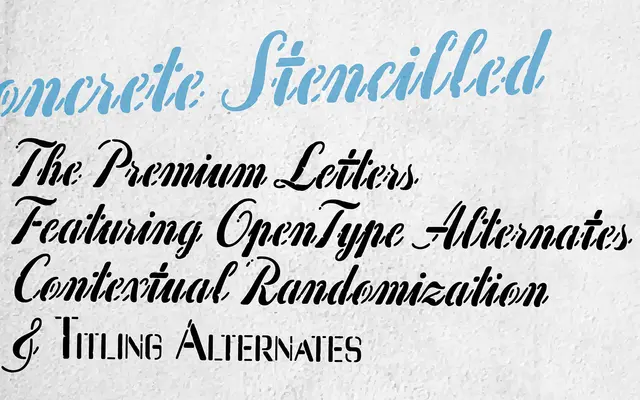
Concrete Stencil specimen from Dharma Type
A stencil script offered in two cuts: a clean precision version and a distressed, effected variant.
Two styles cover the range from sharp, precise stencil letterforms to a rougher, textured cut with deliberate edge. OpenType titling alternates extend typographic options beyond the default character set. Suited to packaging, signage and campaign work where a hand-stencilled aesthetic is the intent.
A stencil-style script typeface offered in clean and distressed variants; the stencil construction and script letterforms place it firmly in the display category.